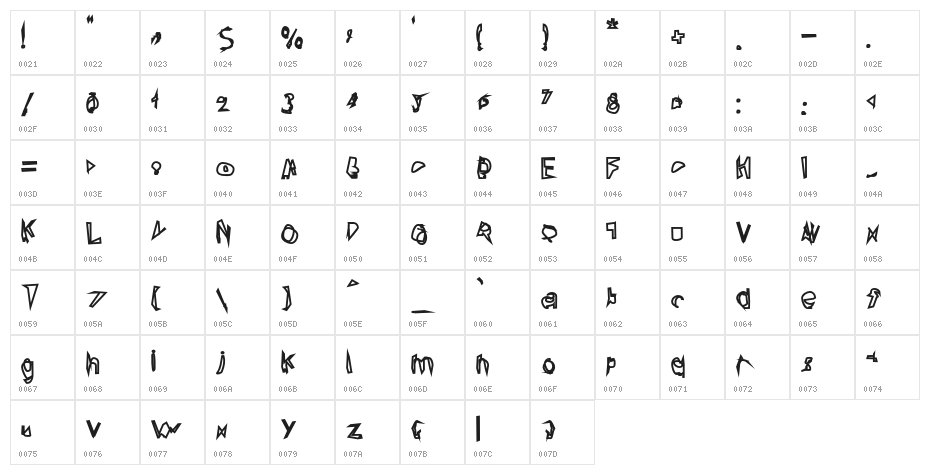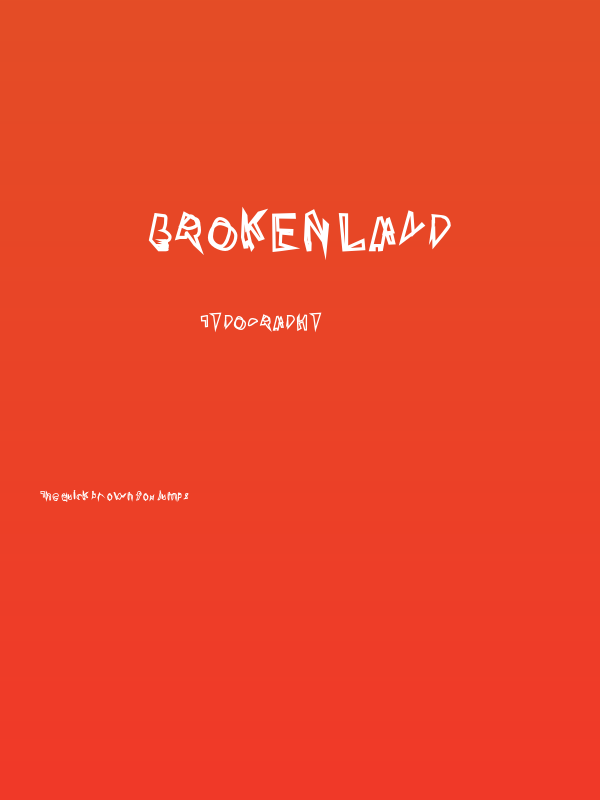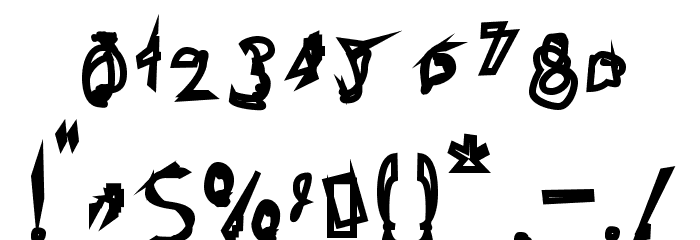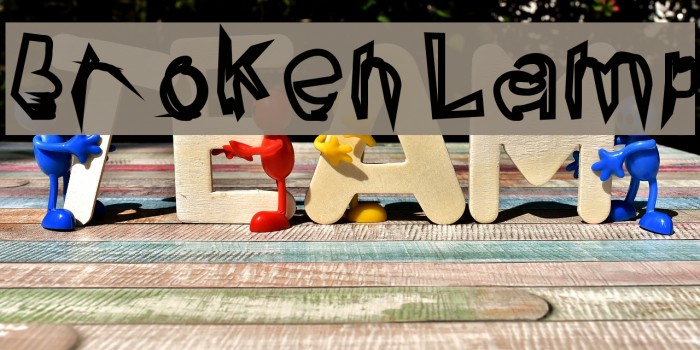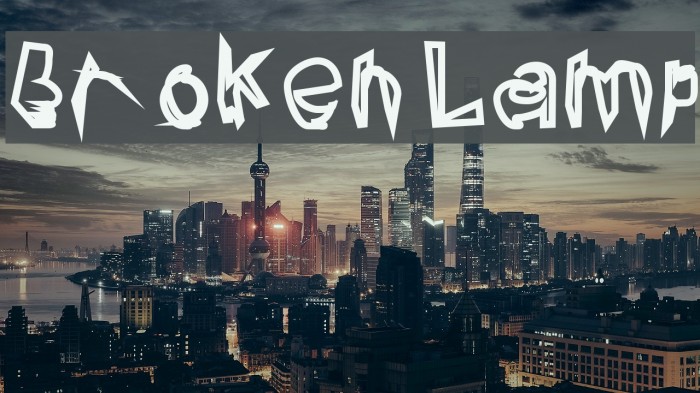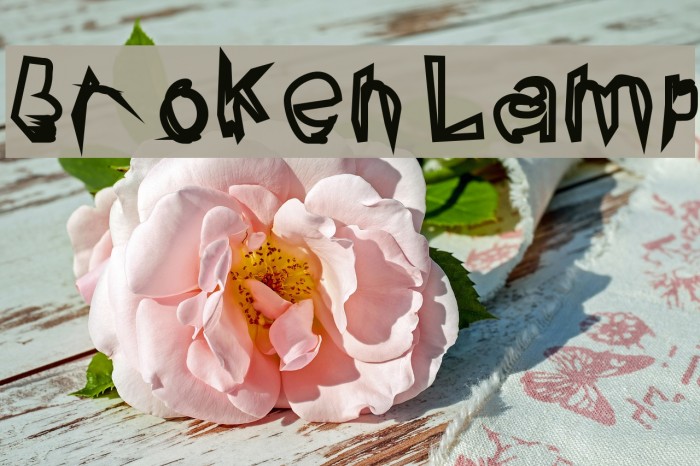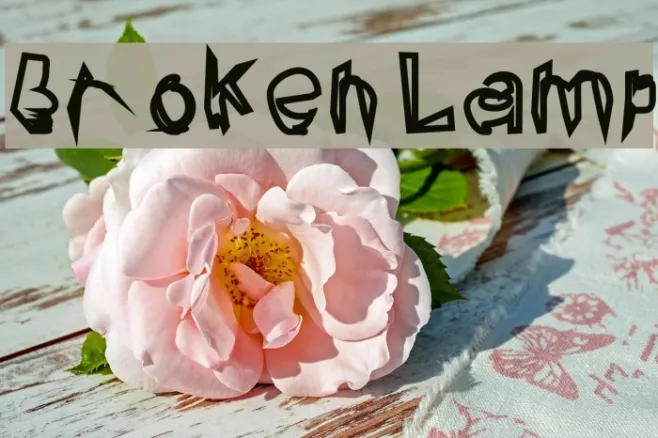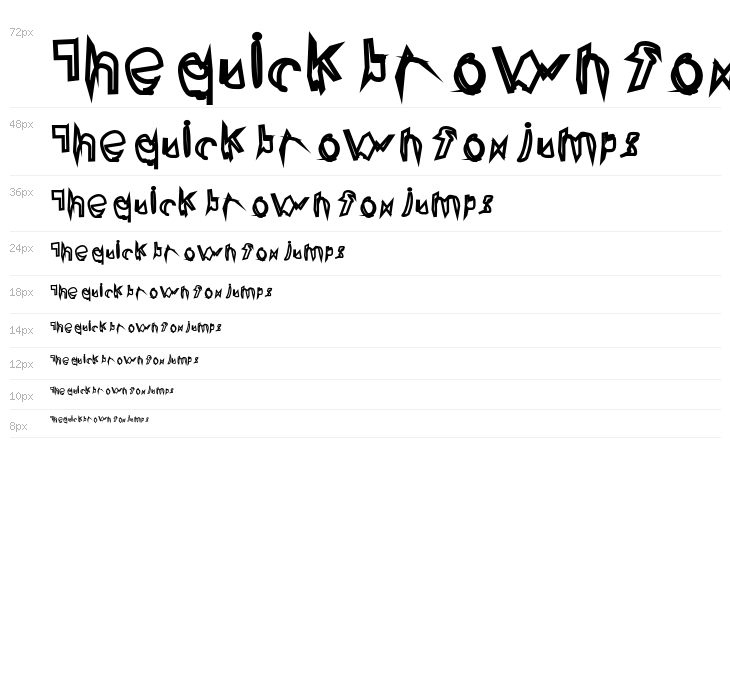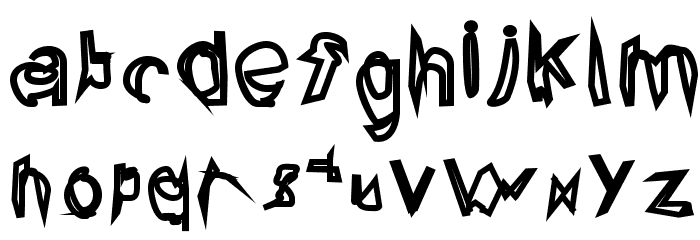
Broken Lamp Font
Broken Lamp Description
This font features a highly stylized, jagged appearance with sharp angles and irregular shapes. The characters are bold and dynamic, creating a sense of movement and energy. Each letter has a unique, almost chaotic design, making it stand out with a rebellious and unconventional flair. The font's edgy style is reminiscent of graffiti or punk aesthetics, with a playful yet aggressive tone. The uppercase and lowercase letters maintain this distinctive style, while the numbers and special characters follow suit with equally bold and striking designs. The overall look is both artistic and avant-garde, perfect for projects that require a strong visual impact.
| Overall Style | Modern, Edgy |
| Proposed Projects | Ideal for album covers, streetwear branding, posters, and edgy graphic design projects. |
| Author | Fonts by Film Himmel - Jens R. Ziehn |